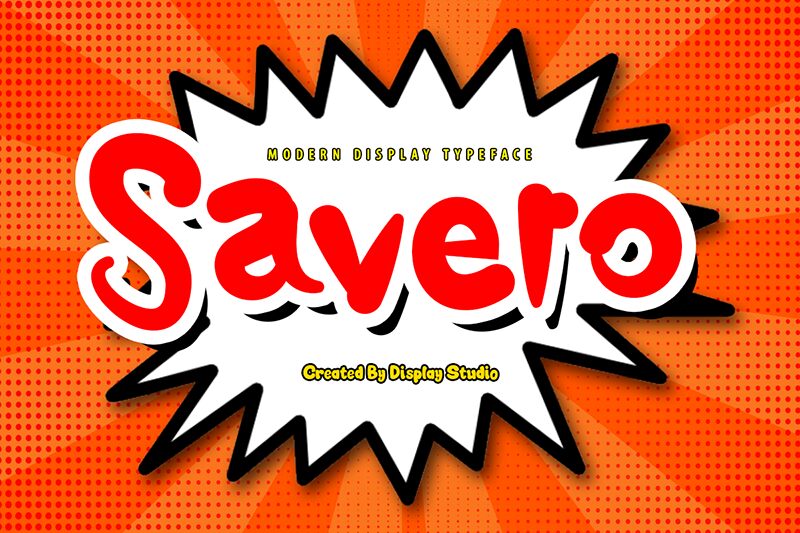
Savero, the bold and smooth brush font designed by Display Studio is perfect for projects that require a touch of elegance and sophistication. The carefully crafted curves and fluid strokes of this typeface make it ideal for branding, marketing materials, packaging design, and even wedding invitations. The bold weight ensures maximum impact while maintaining legibility, making it a great choice for headlines, titles, and subheadings. Embrace the artistic beauty of Savero and elevate your designs with its unique style. Whether you're designing for fashion or food industries or any other creative field, Savero is sure to make your project stand out from the crowd.